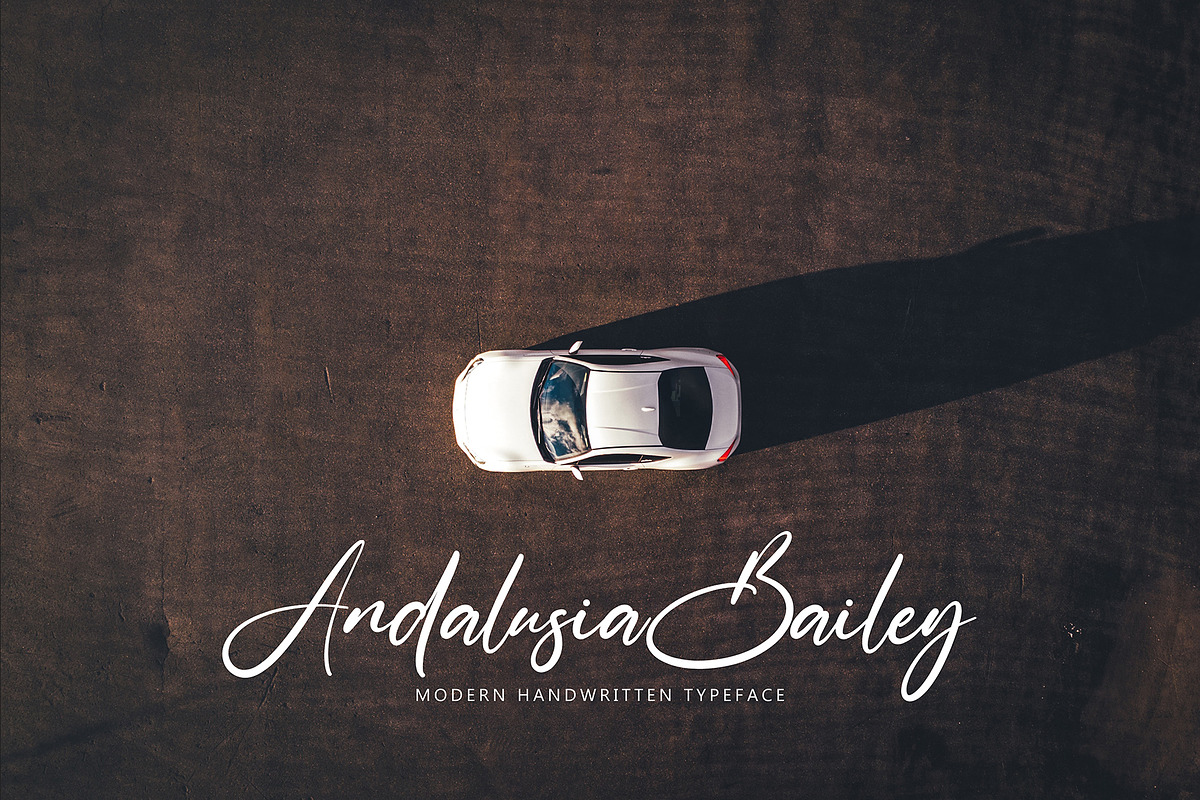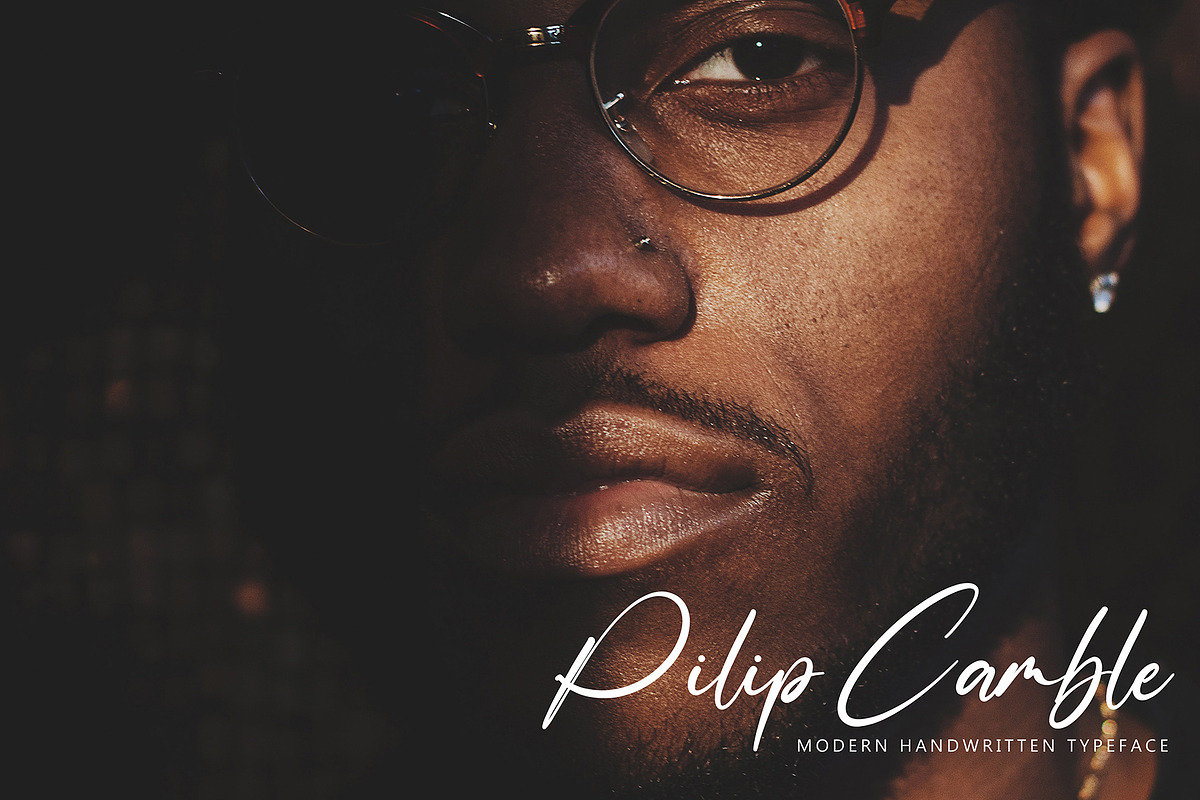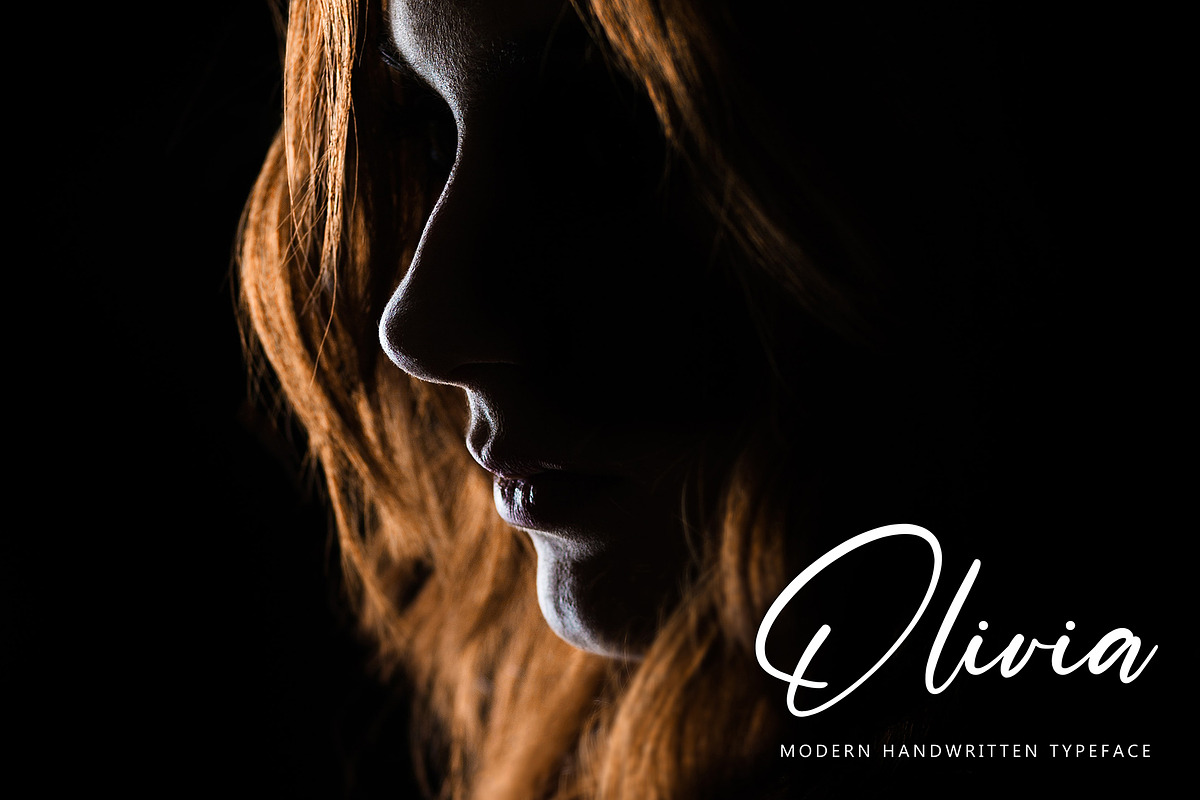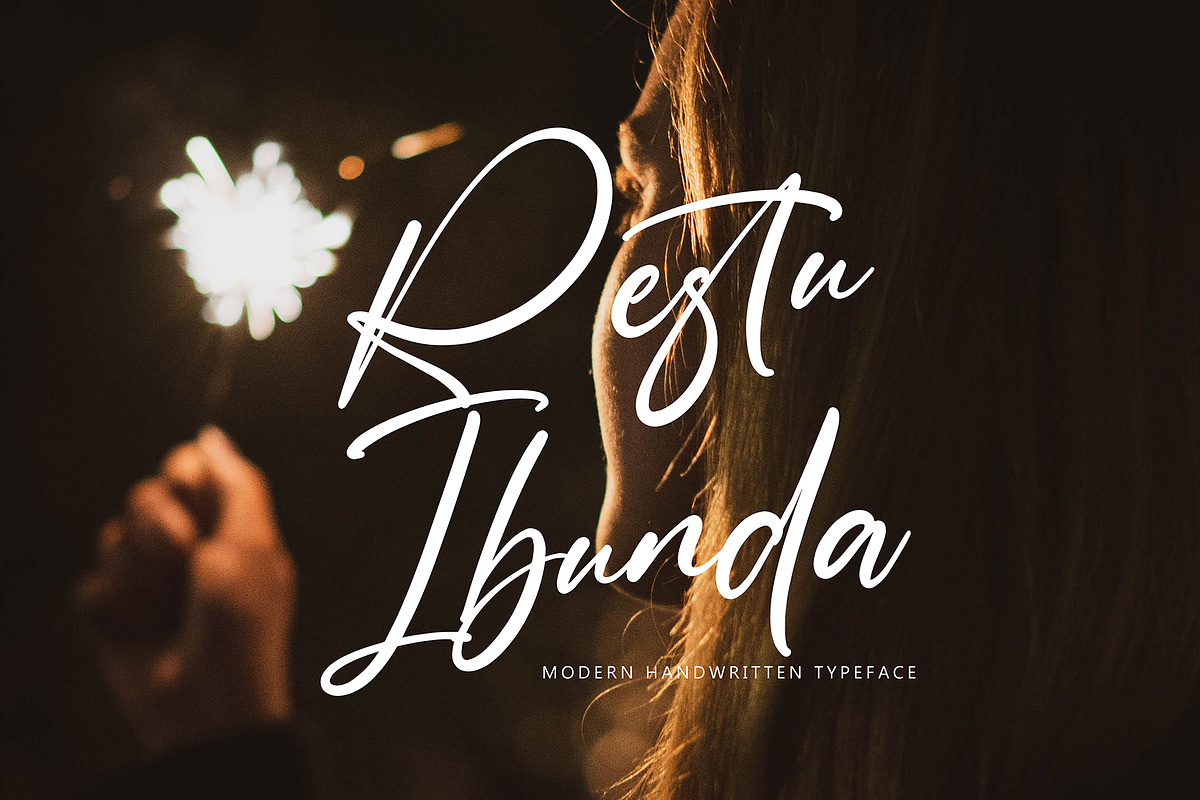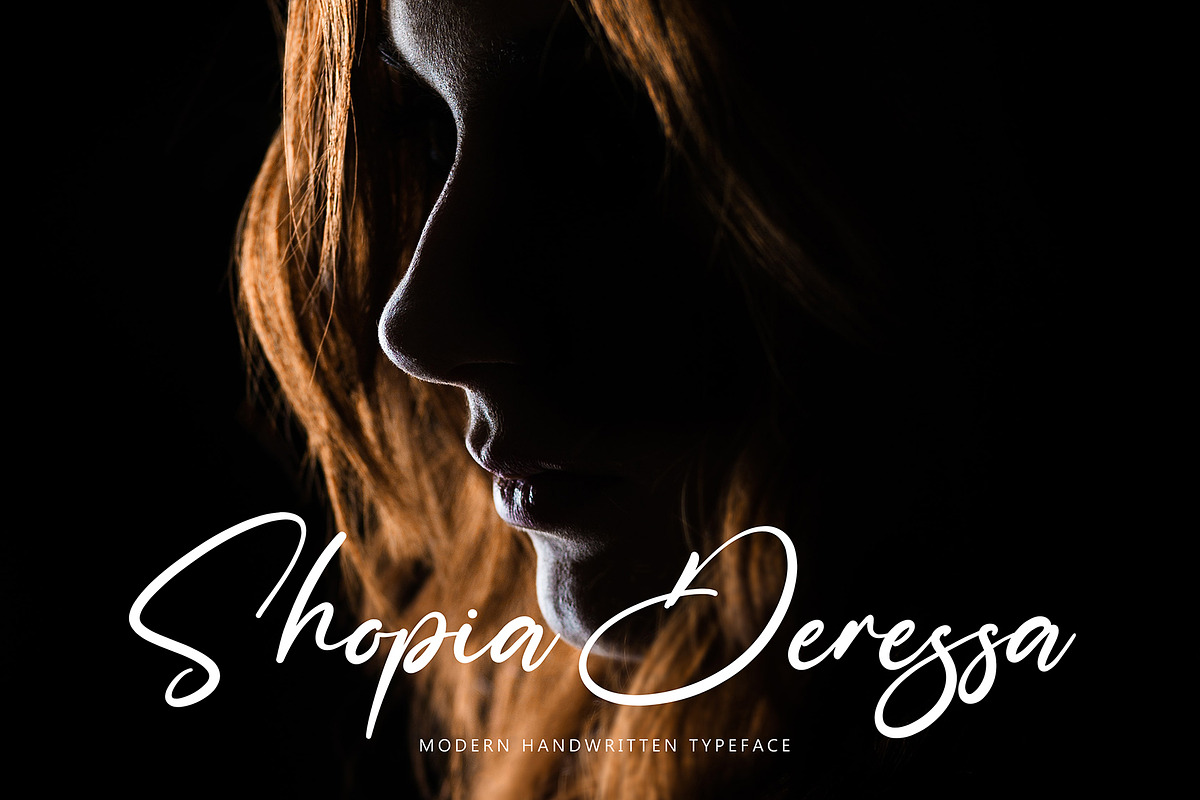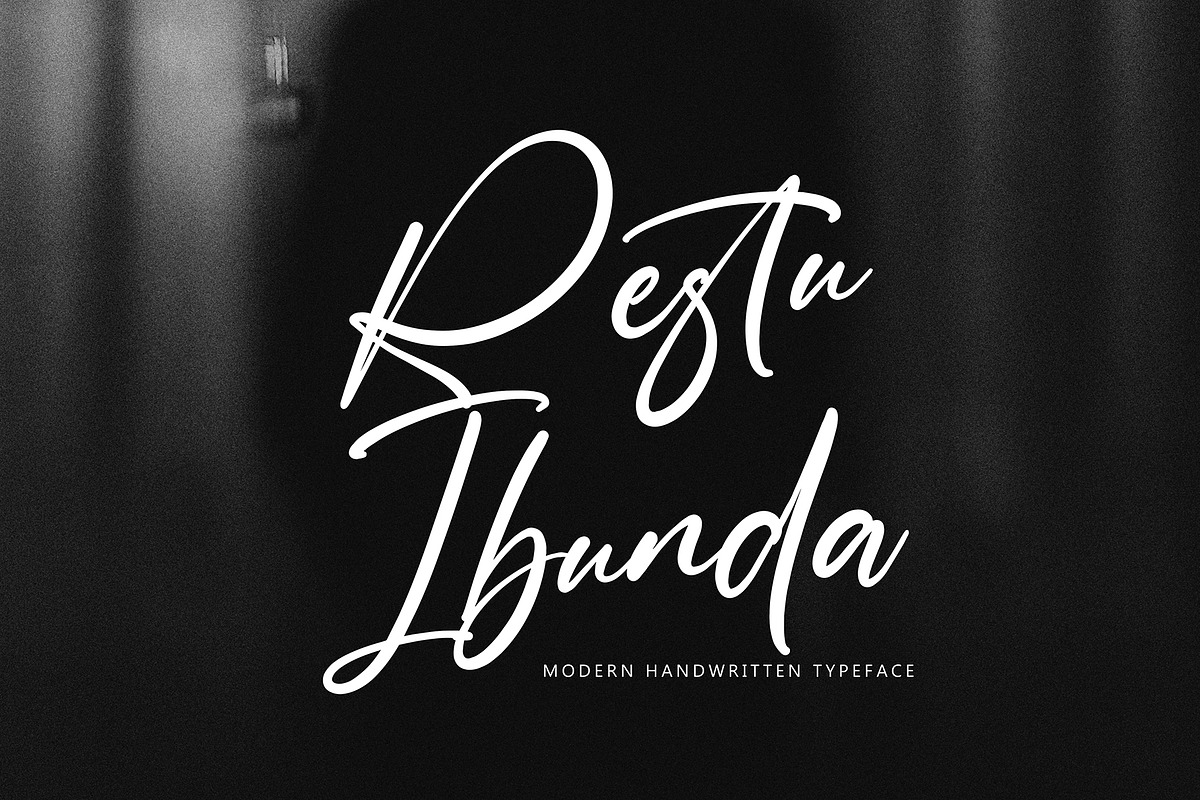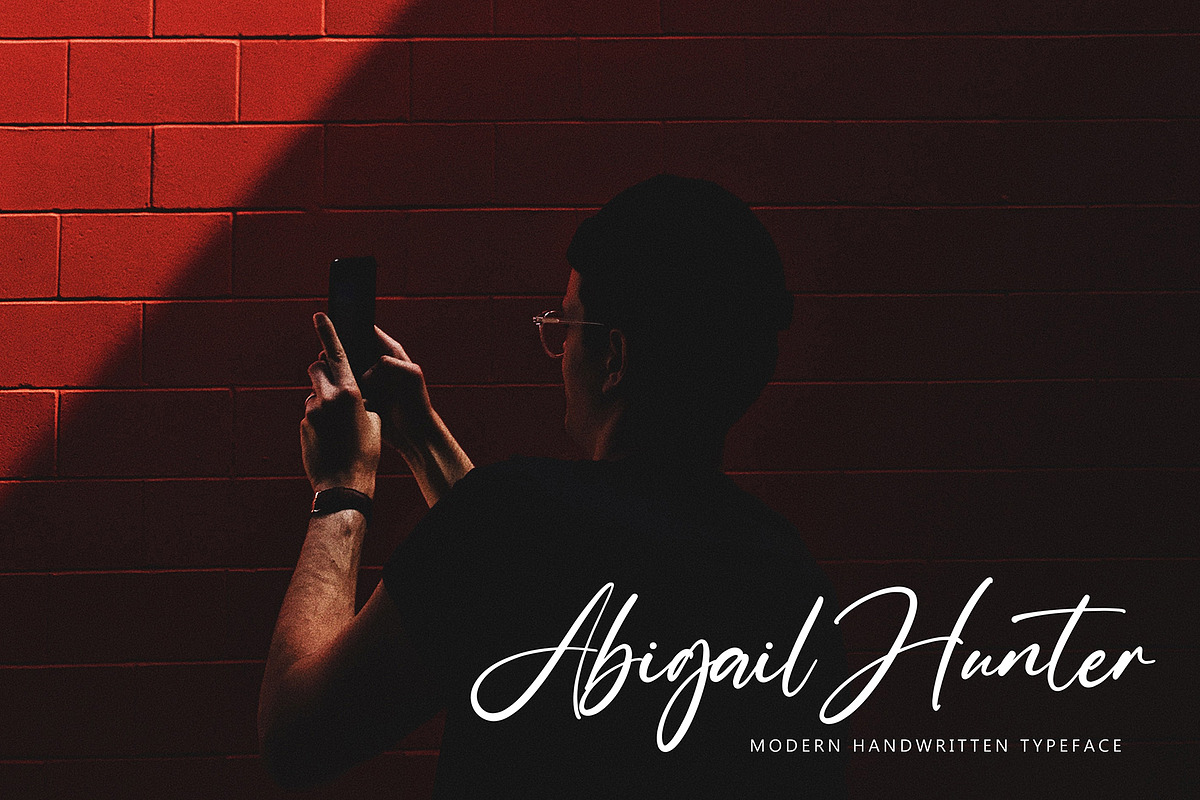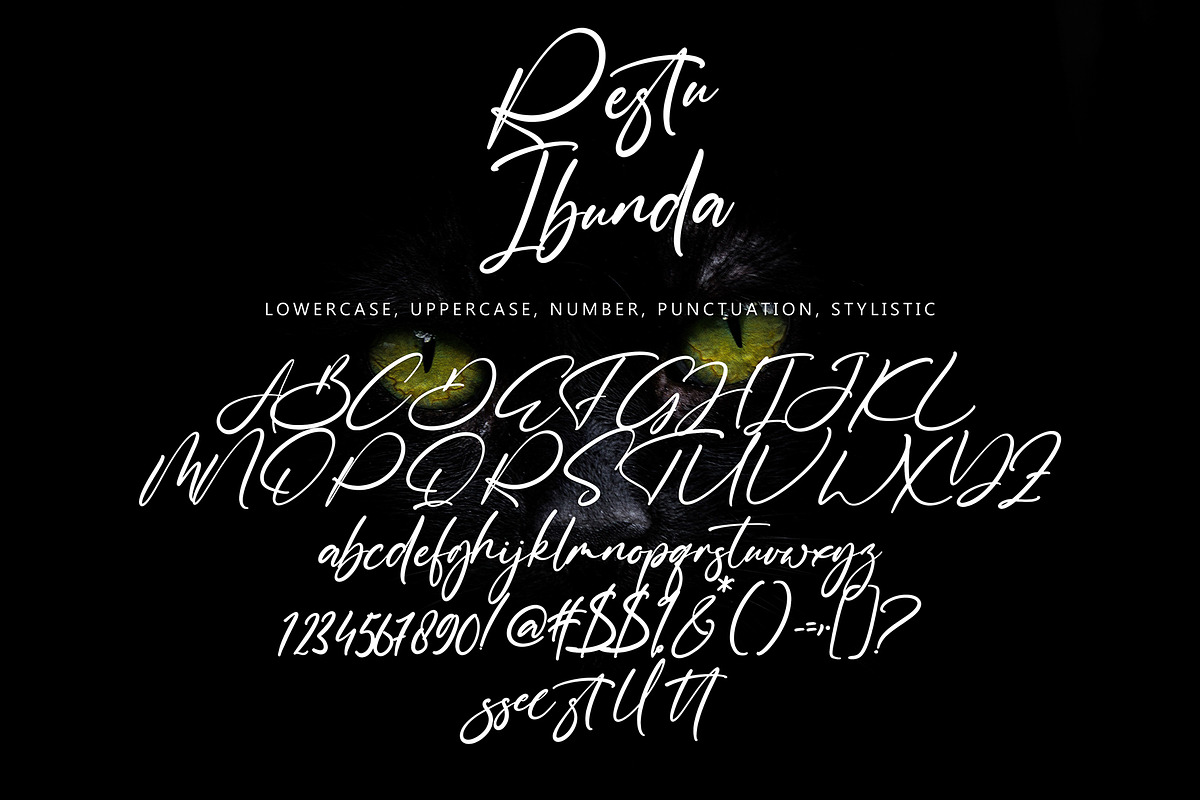
Restu Ibunda
Restu Ibunda font with new style, this font will perfect for many different project ex: quotes, logo, blog header, poster, banding, letter, invitation, stationery, etc...